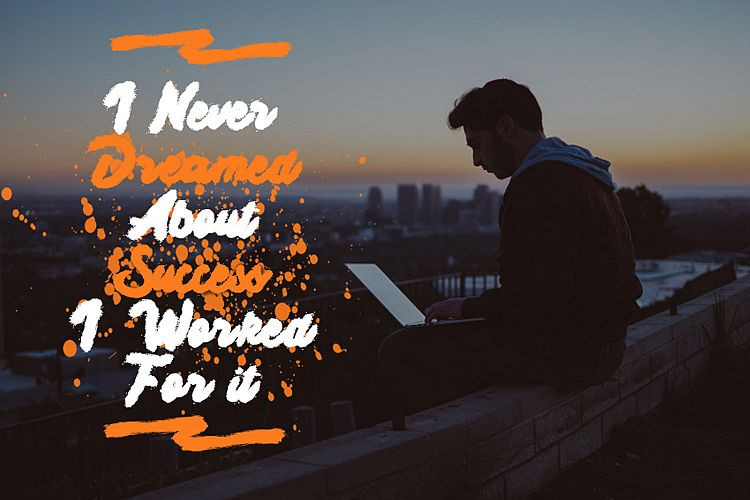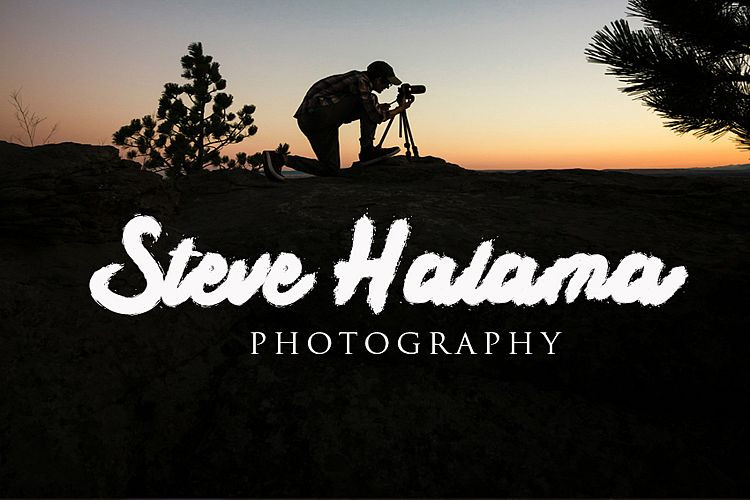
Harmless Brush Font
Harmless Brush Font by Gassstype 17,426 downloads
Harmless Brush Font
Harmless is a Rough Brush Font.This is a Textured Natural Style and classy style with a clear style and dramatic movement. This font Harmless is great for your next creative project such as logos, printed quotes, invitations, cards, product packaging, headers, Logotype, Letterhead, Poster, Design this font is great for your creative projects such as watermark on photography, and perfect for logos & branding, invitation,advertisements,product designs, stationery, wedding designs,label ,product packaging, special events or anything that need handwritting taste. That is has charming, authentic and relaxed characteristic more natural look to your text You can activate Ligature OpenType panel.